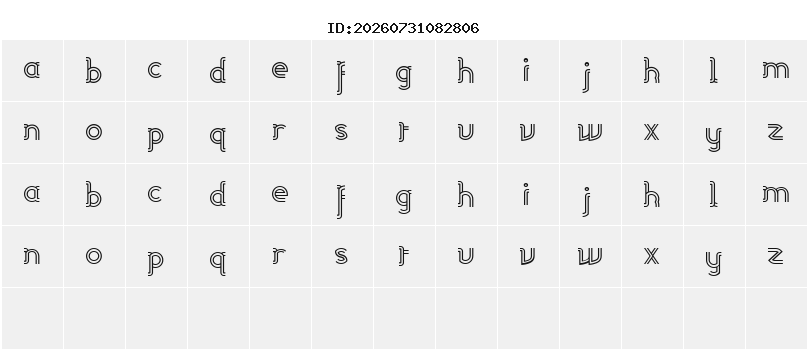
• Font Name: Linea
About Linea.ttf
Linea.ttf is a modern, elegant sans-serif font designed for ultimate readability and visual harmony. Perfect for branding, headlines, web design, and print materials.